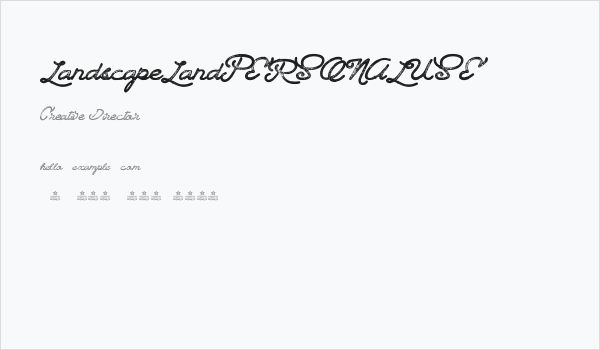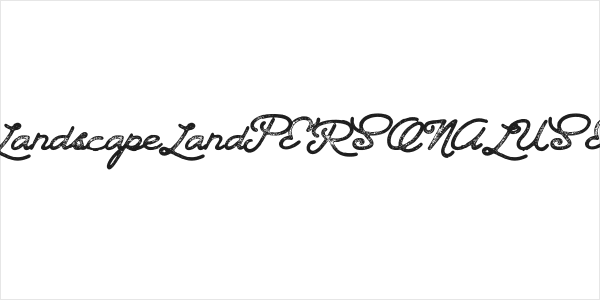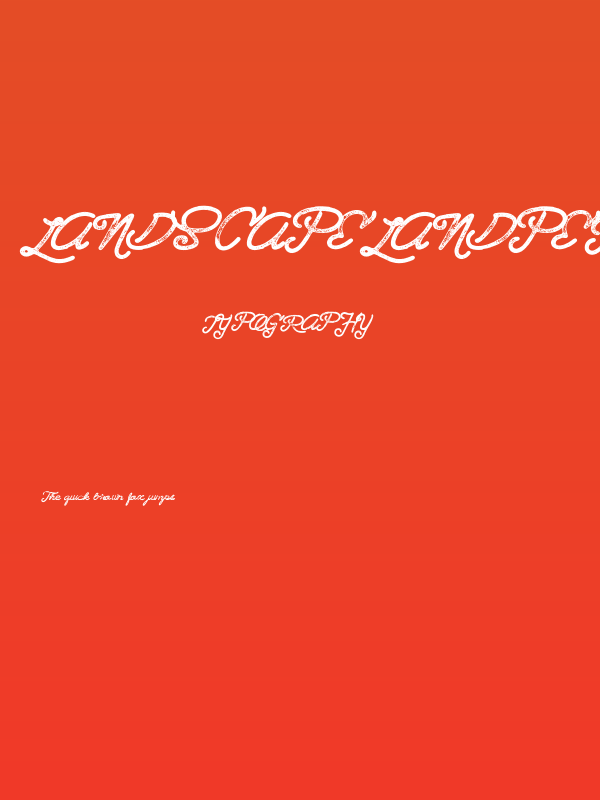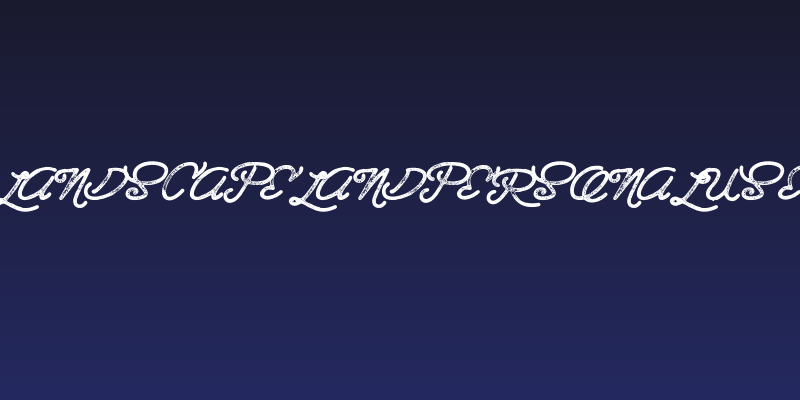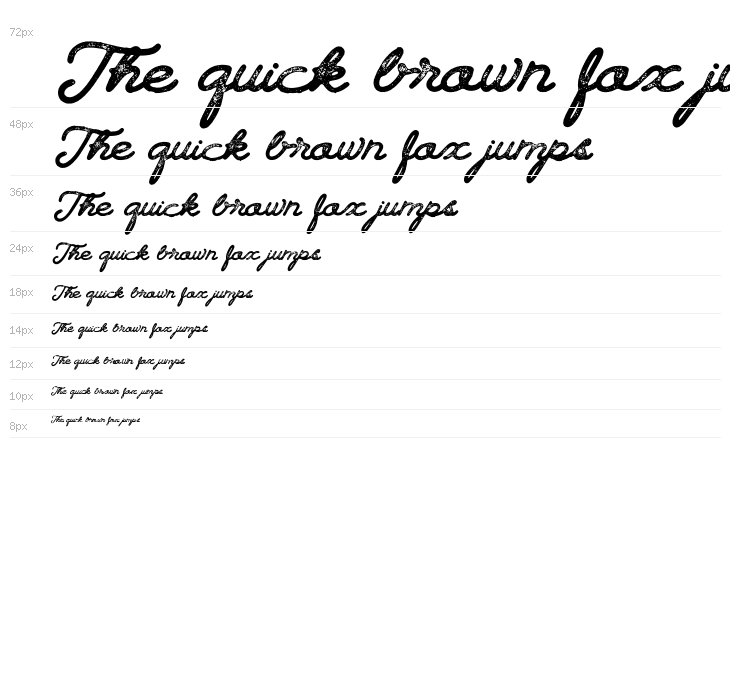
LandscapeLandPERSONALUSE Font
LandscapeLandPERSONALUSE Description
This font features a decorative and textured script style, characterized by its flowing, cursive letterforms. The uppercase letters exhibit a playful and artistic flair, with each character displaying unique swirls and loops that add to its charm. The lowercase letters maintain a consistent style, complementing the uppercase with their smooth, connected strokes. The texture within each letter gives the font a distressed, vintage appearance, making it stand out with a handcrafted feel. This font is ideal for creative projects that require a touch of elegance and personality.
| Overall Style | Vintage, Decorative |
| Proposed Projects | Ideal for wedding invitations, greeting cards, branding projects, and artistic posters. |